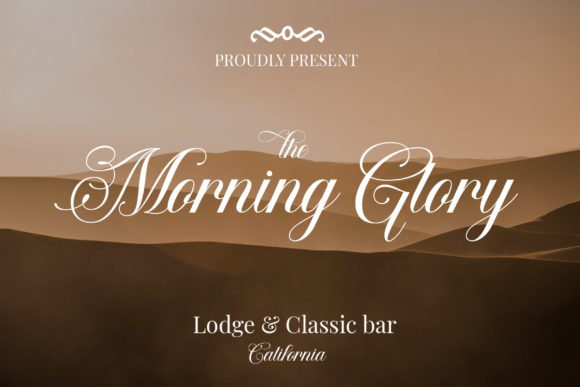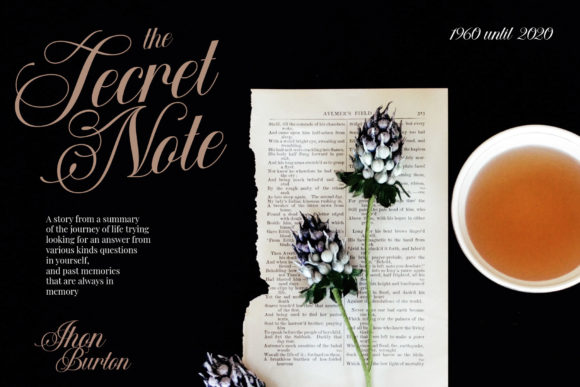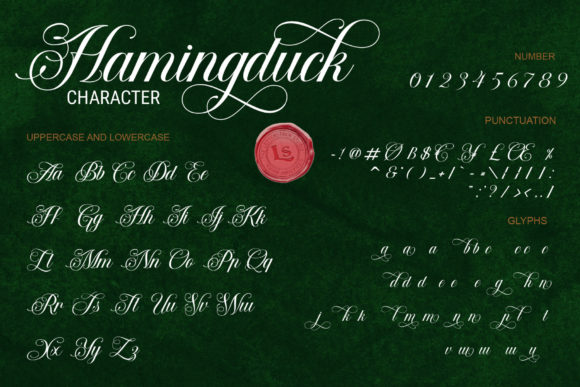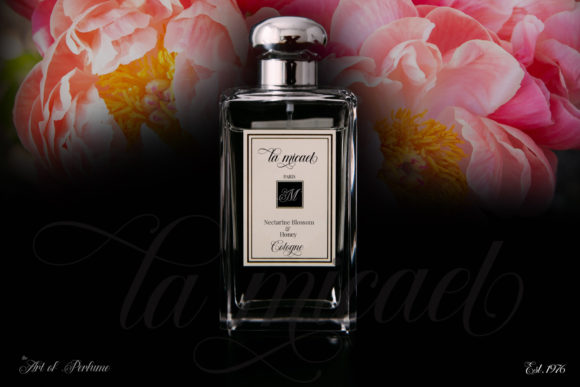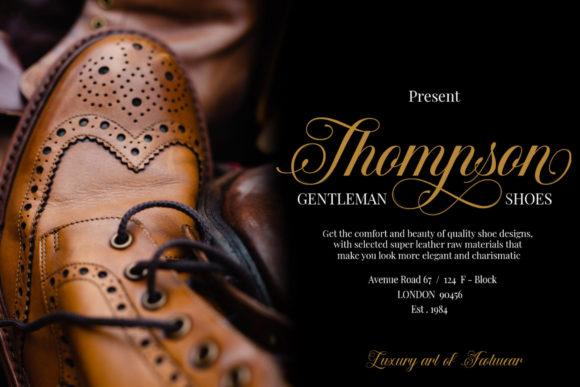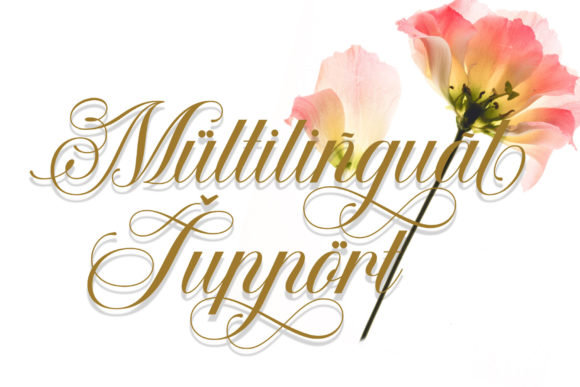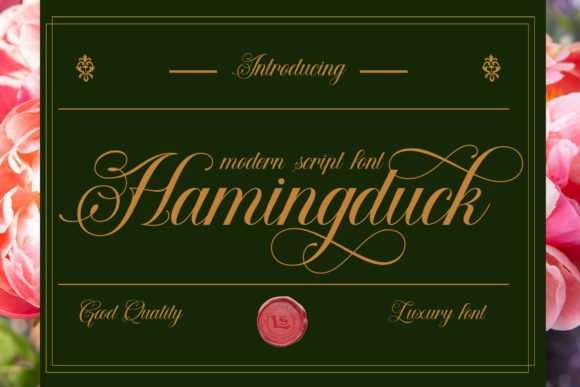
Hamingduck Font: Elevate Your Designs with Elegant Script Typography
In the world of typography, a well-crafted font can make all the difference in elevating your design projects from ordinary to extraordinary. For designers and crafters seeking a touch of sophistication and elegance, the Hamingduck font is an exceptional choice. This stunning script font boasts a contemporary atmosphere and impeccable form, drawing inspiration from timeless classic calligraphy.
The Inspiration Behind Hamingduck
Hamingduck’s design is rooted in the rich tradition of classic calligraphy, yet it presents a refreshingly modern take on this timeless art form. The font’s creator aimed to strike a balance between classic elegance and contemporary flair, resulting in a typeface that feels both nostalgic and cutting-edge. By blending the best of both worlds, Hamingduck has become an essential tool for designers looking to add a touch of refinement to their work.
Key Characteristics of Hamingduck Font
So, what sets Hamingduck apart from other script fonts on the market? Here are a few key characteristics that make this font truly special:
- Balanced Stroke Widths: Hamingduck’s strokes are carefully crafted to be neither too thin nor too thick, creating a beautifully balanced appearance that works well across various design applications.
- Varied Letterforms: The font features a delightful range of letterforms, each with its own unique character and flair. This variation adds a touch of organic elegance to your designs, making them feel more hand-crafted and personal.
- Contemporary Atmosphere: While Hamingduck is undoubtedly rooted in classic calligraphy, its overall aesthetic feels refreshingly modern and contemporary. This makes it an excellent choice for designers seeking a font that will help their work stand out in a crowded marketplace.
Hamingduck’s versatility makes it an excellent choice for a wide range of design projects, including:
- Branding and Logo Design: Add a touch of sophistication and elegance to your brand’s identity with Hamingduck’s beautiful script typography.
- Wedding and Event Stationery: Create stunning wedding invitations, save-the-dates, and other event materials with Hamingduck’s romantic and refined aesthetic.
- Packaging and Product Design: Elevate your product packaging with Hamingduck’s elegant typography, perfect for luxury goods, cosmetics, and more.
- Digital Design and Web Typography: Use Hamingduck to add a touch of sophistication to your website, social media graphics, or digital marketing materials.
Why Choose Hamingduck Font?
With so many script fonts available, why should you choose Hamingduck for your design projects? Here are just a few compelling reasons:
- Unique and Memorable: Hamingduck’s distinctive letterforms and elegant aesthetic make it a font that will help your designs stand out from the crowd.
- Highly Versatile: Whether you’re working on a branding project, wedding stationery, or digital design, Hamingduck’s versatility makes it an excellent choice.
- Easy to Read and Legible: Despite its elegant appearance, Hamingduck remains highly legible, making it perfect for body text and longer design applications.
In conclusion, the Hamingduck font is an exceptional choice for designers and crafters seeking to add a touch of elegance and sophistication to their work. With its beautiful script typography, balanced stroke widths, and varied letterforms, this font is sure to elevate your designs and leave a lasting impression. Whether you’re working on a branding project, wedding stationery, or digital design, Hamingduck is a versatile and refined choice that will help your work stand out in a crowded marketplace.